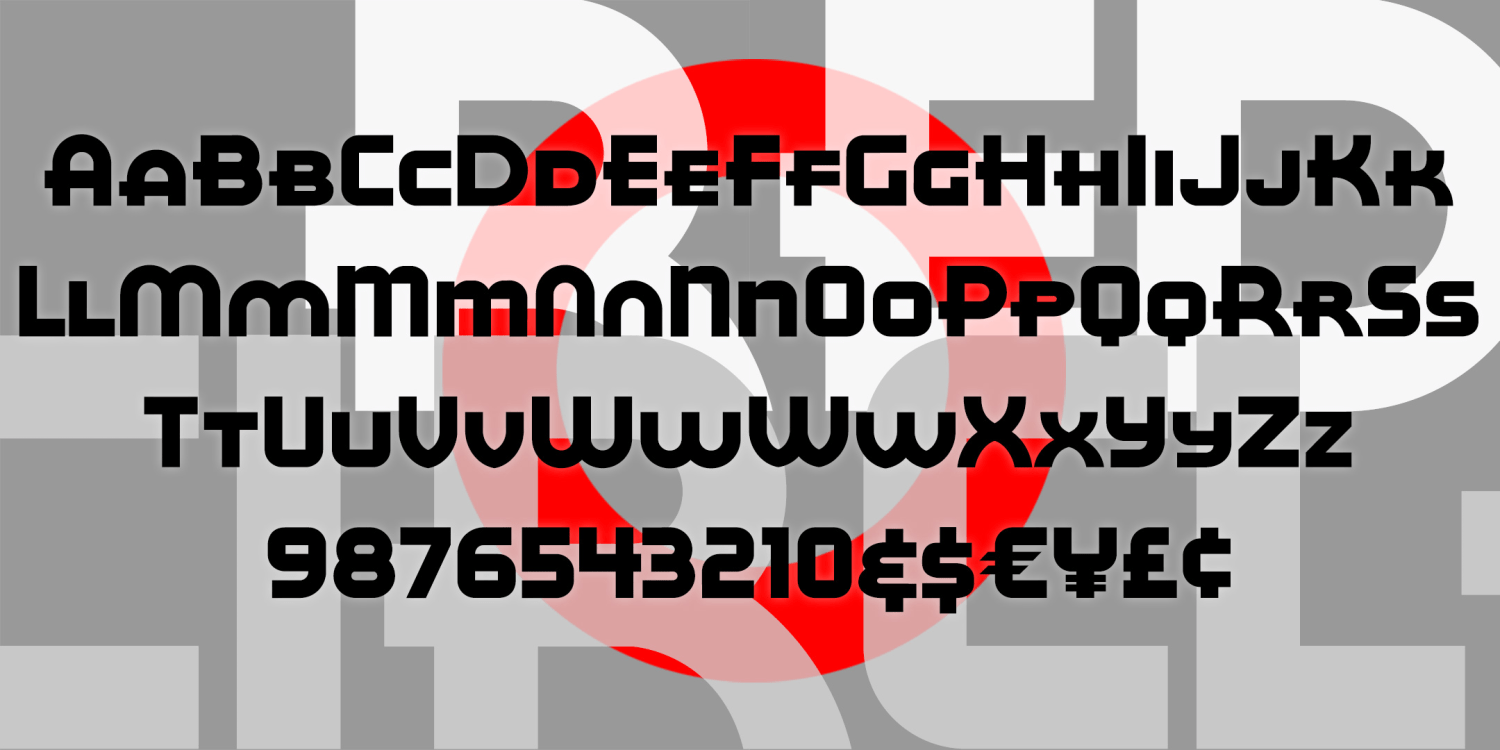
About Red Circle
RED CIRCLE is a bold and stylish geometric sans serif with its roots in Art Deco design. It was inspired by the hand lettering formerly used on Eight O'Clock coffees. Once associated with A&P stores, Eight O?Clock coffees, including Bokar and…